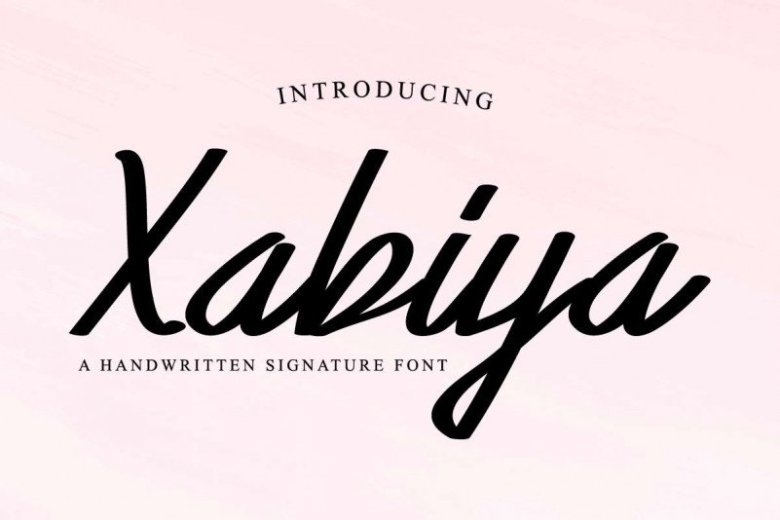
Xabiya Marker Script Font
Xabiya Marker Script Font is a natural and modern handwritten font.
It’s Perfect for logo, invitation, social media posts, label, photography, watermark, advertisements, product packaging, product designs, stationery, wedding designs, special events or anything.